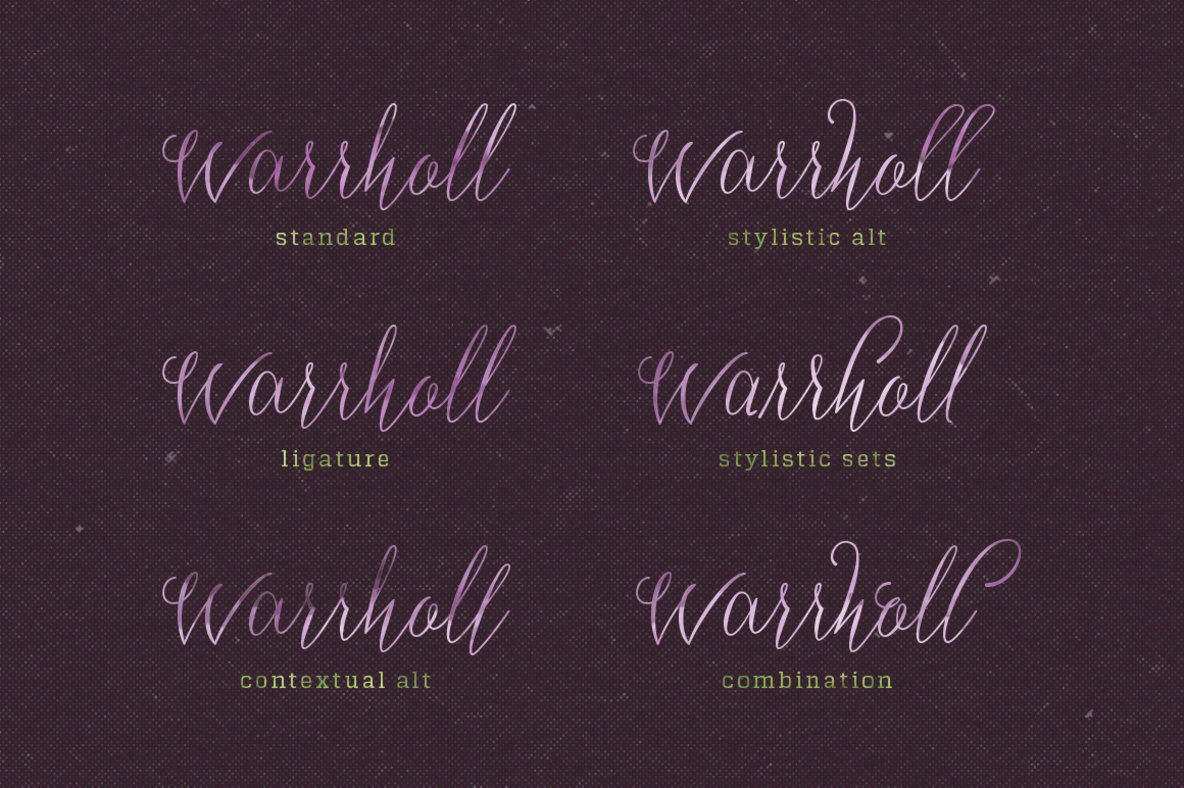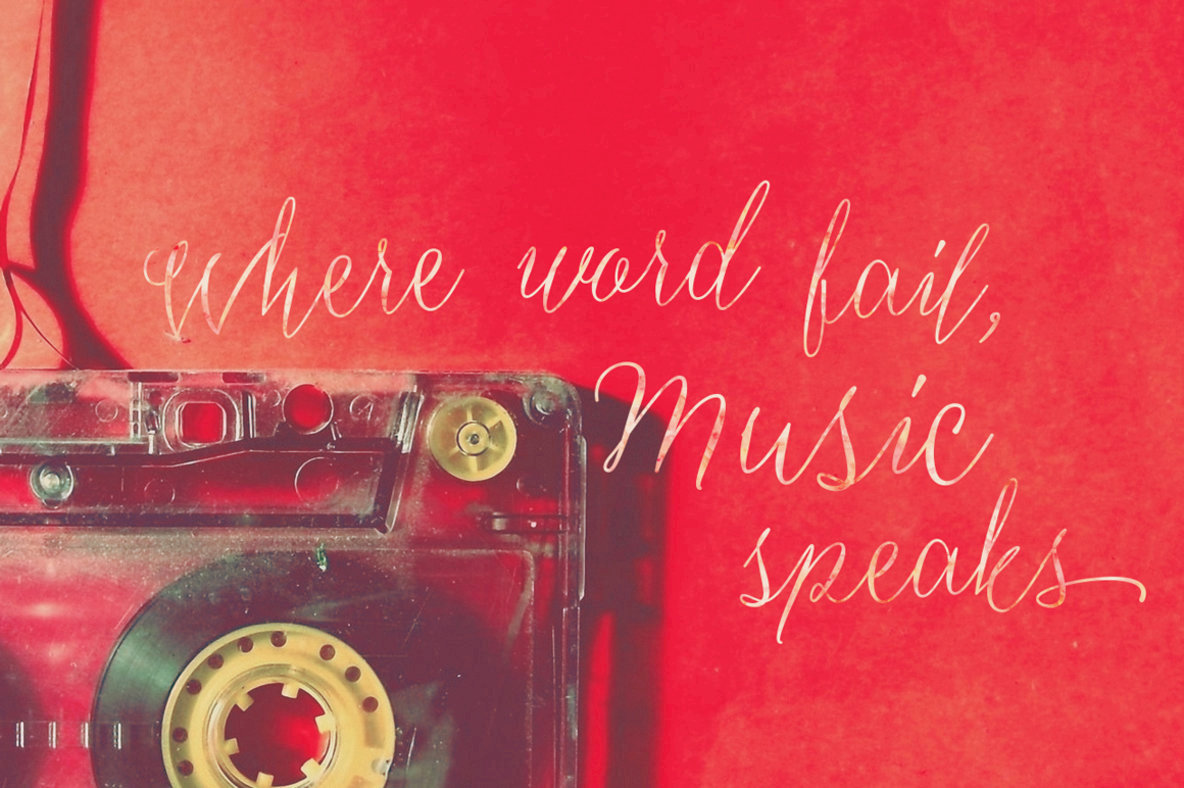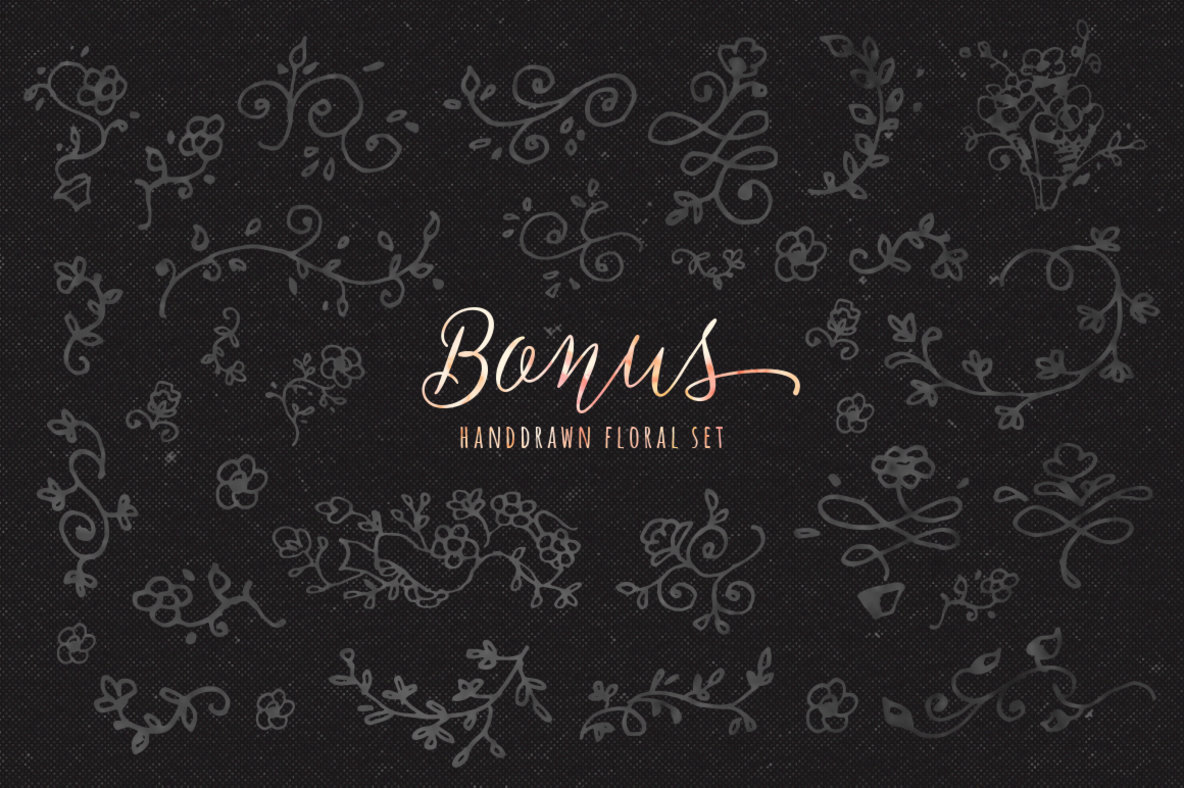
Sherina: Playful Script With Natural Feel
Sherina, crafted by Artimasa, brings a sense of fun and casual flair to any project. Ideal for wedding invitations, greeting cards, and retro or vintage designs, this handwritten script font promises a natural and personal touch. Its charm lies in the ability to mix and match alternate characters, enhancing your design's appeal.
• Includes a bonus hand-drawn floral set for a creative, stylish look.
• OpenType features with contextual alternates and stylistic sets.
• Swashes and ligatures for added design flexibility.